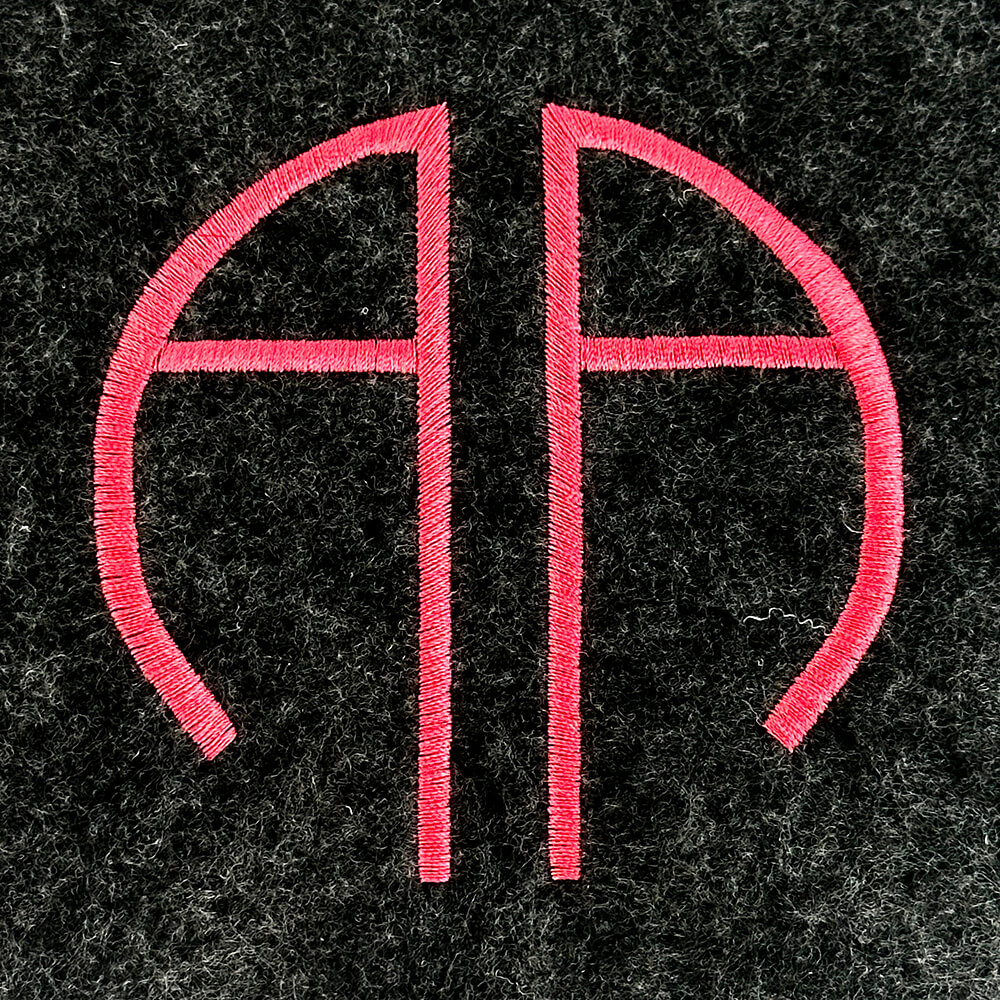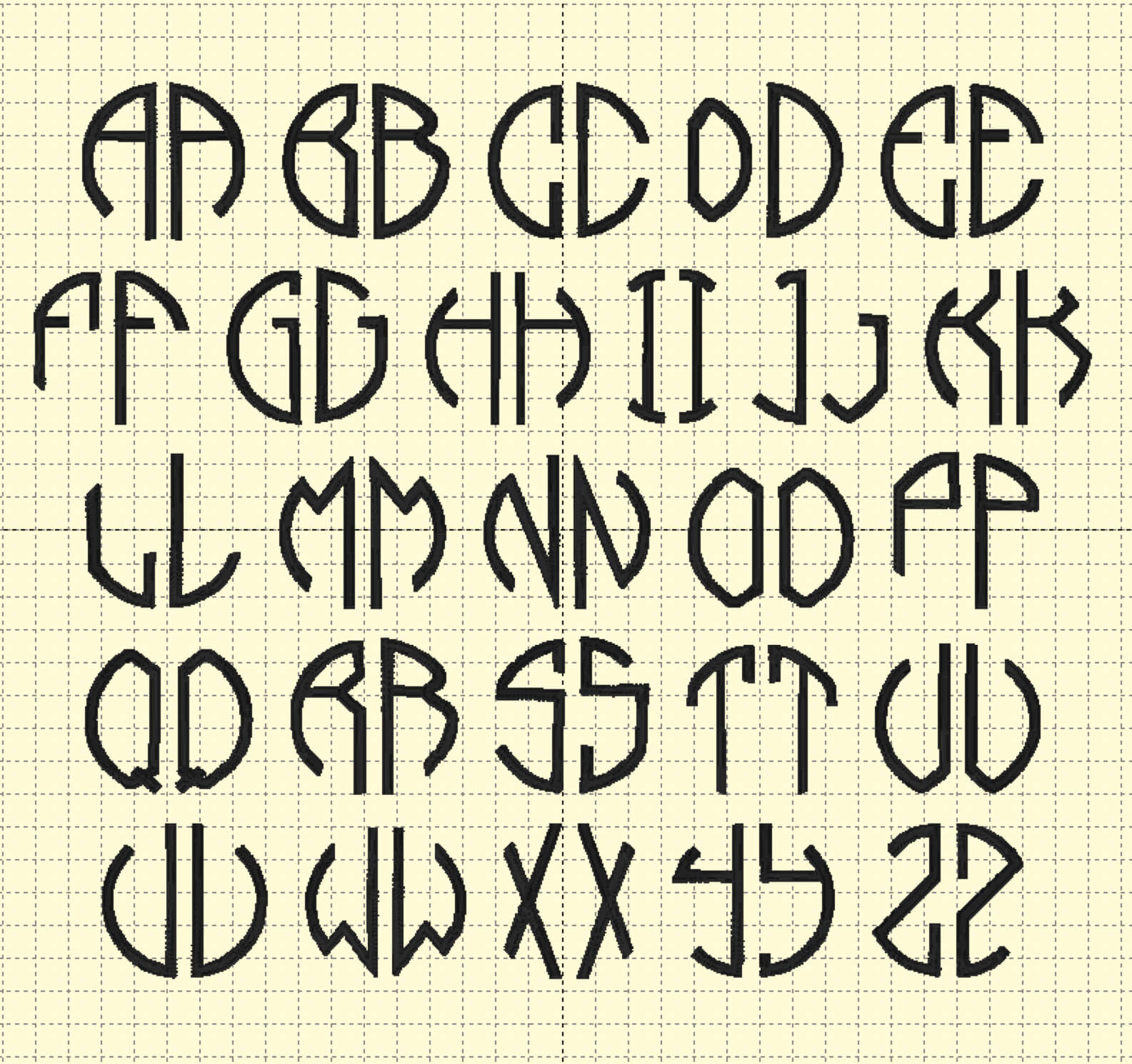
Siamese Circle Duo Monogram Font
The Siamese Circle Duo Monogram Embroidery Font has a balanced, timeless and refined look perfect for personalizing gifts, linens, and accessories.
Siamese Circle Duo Monogram – Machine Embroidery Font
All upper case letters suitable for building monograms. Uppercase keys will generate the left letter in the circle and lowercase keys will generate the right letter in the monogram.
Siamese Circle Duo Monogram Font